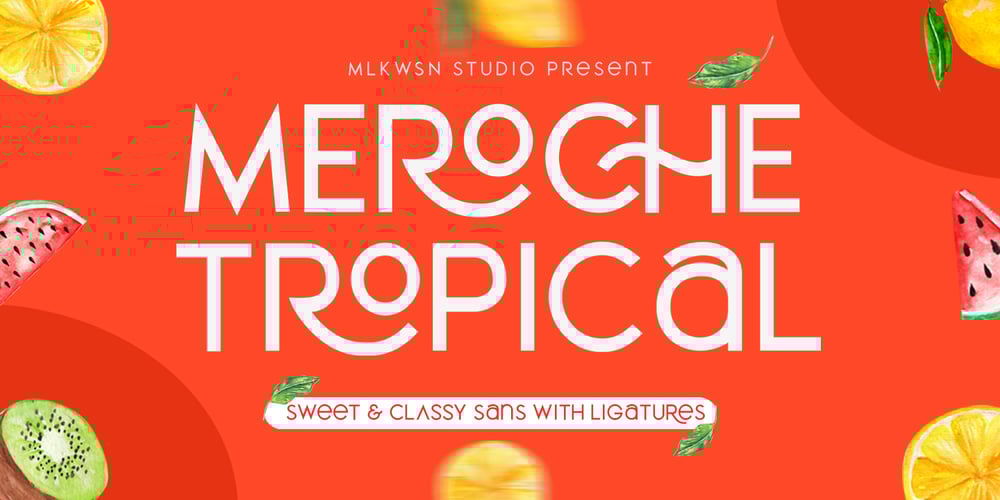
Meroche Font Family was designed by Malik Wisnu and published by MlkWsn. Meroche contains 4 styles and family package options. Introducing – Meroche Sweet and Classsy Sans Display Family Meroche Sans Family consists of 4 weight : Thin, regular, medium and bold equipped with 20+ ligatures and alternative letters that look sweet and classy and are very good for your work such as logos, branding, packaging, posters, invitations, insta stories and your advertising needs. If there is anything you need to ask, you can contact me at mlkwsn999@gmail.com